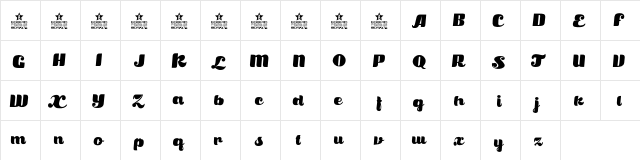
Satisfaction Bold Font Preview
Satisfaction Bold
Satisfaction Bold Font Details
| Foundry | Billy Argel |
| Designer | Billy Argel |
Design Context for Satisfaction Typeface
Satisfaction is a composed and adaptable typeface that performs quietly and consistently across a wide range of design contexts. The heavy weight commands attention and anchors typographic hierarchies.